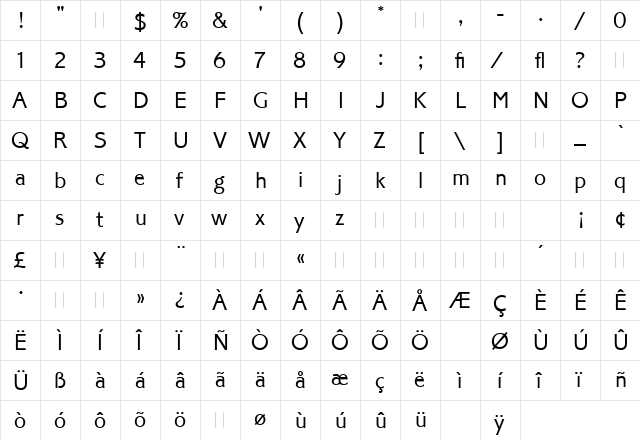
Corinthian Light LET Plain
Design Context for Corinthian Light LET Typeface
Corinthian Light LET is a composed and adaptable typeface that performs quietly and consistently across a wide range of design contexts. The delicate stroke weight brings airiness and refinement to layouts.